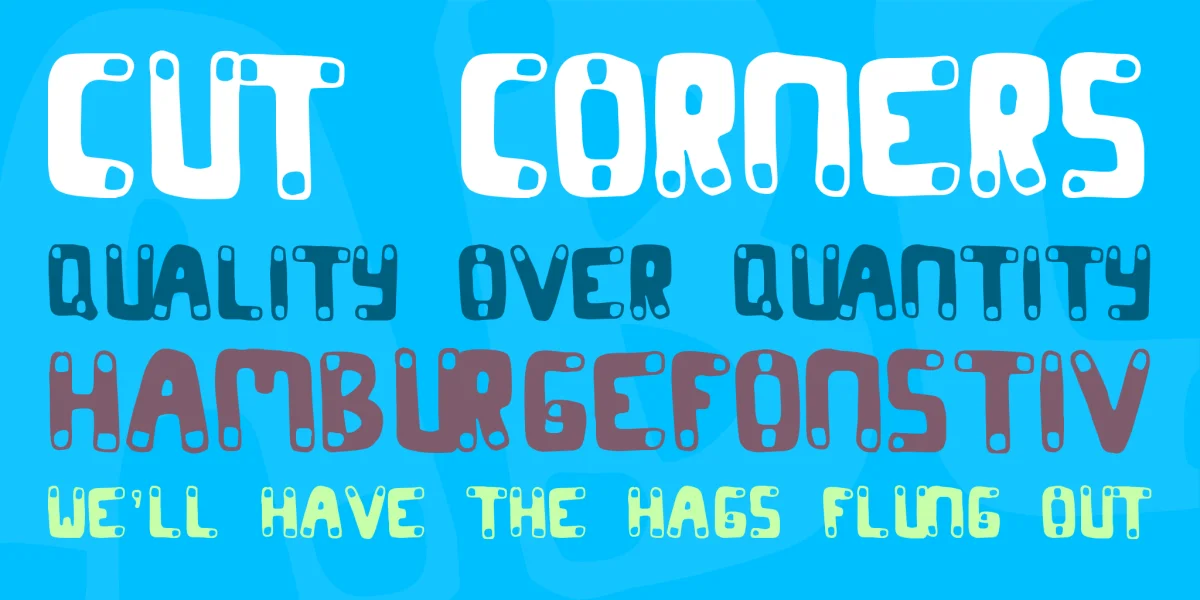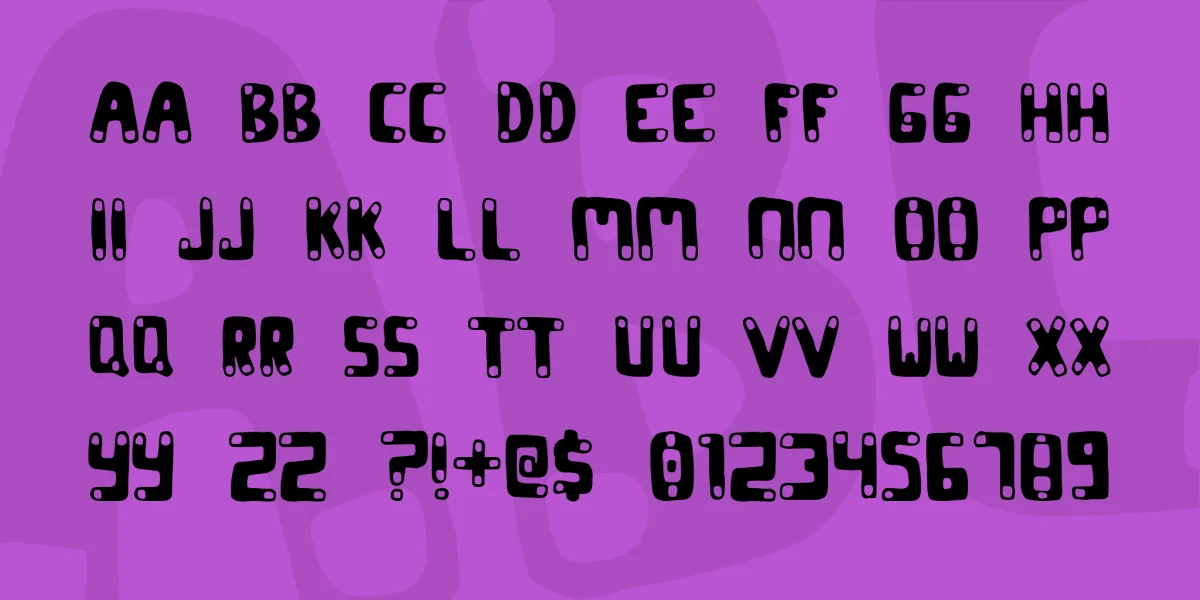
(All keyboard characters (Caps=Lower), some special) is yet another scan job, this time from Spring Break 99, where I was home sick with not one but two simultaneous illnesses. Now I'm back at school and all better! This font is like DNA, like magnets, like a biological agent. Heavy; best for headlines. By the way, I'm now officially a Communication Design minor here at CMU, hooray! (10 April 1999)